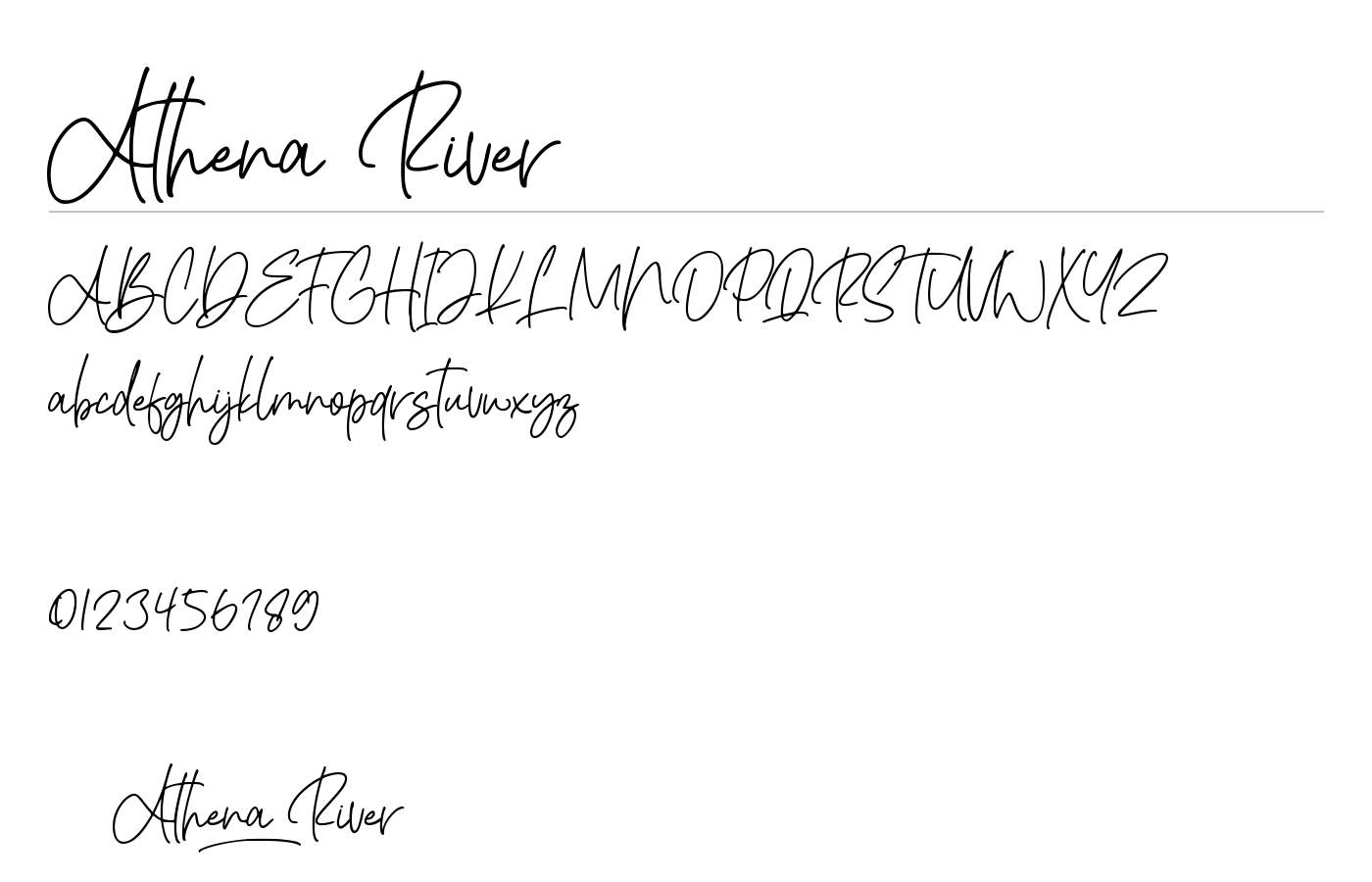
Athena River is a delicate and elegant handwritten script font with a natural, flowing style that feels both personal and refined. Its slender strokes and slightly uneven lines give it an organic, artistic charm, making it perfect for invitations, branding, and creative projects that require a touch of sophistication and warmth. This font works best in designs where a stylish, handcrafted look enhances the overall mood without overwhelming the message.
Athena River Font
About Athena River Font